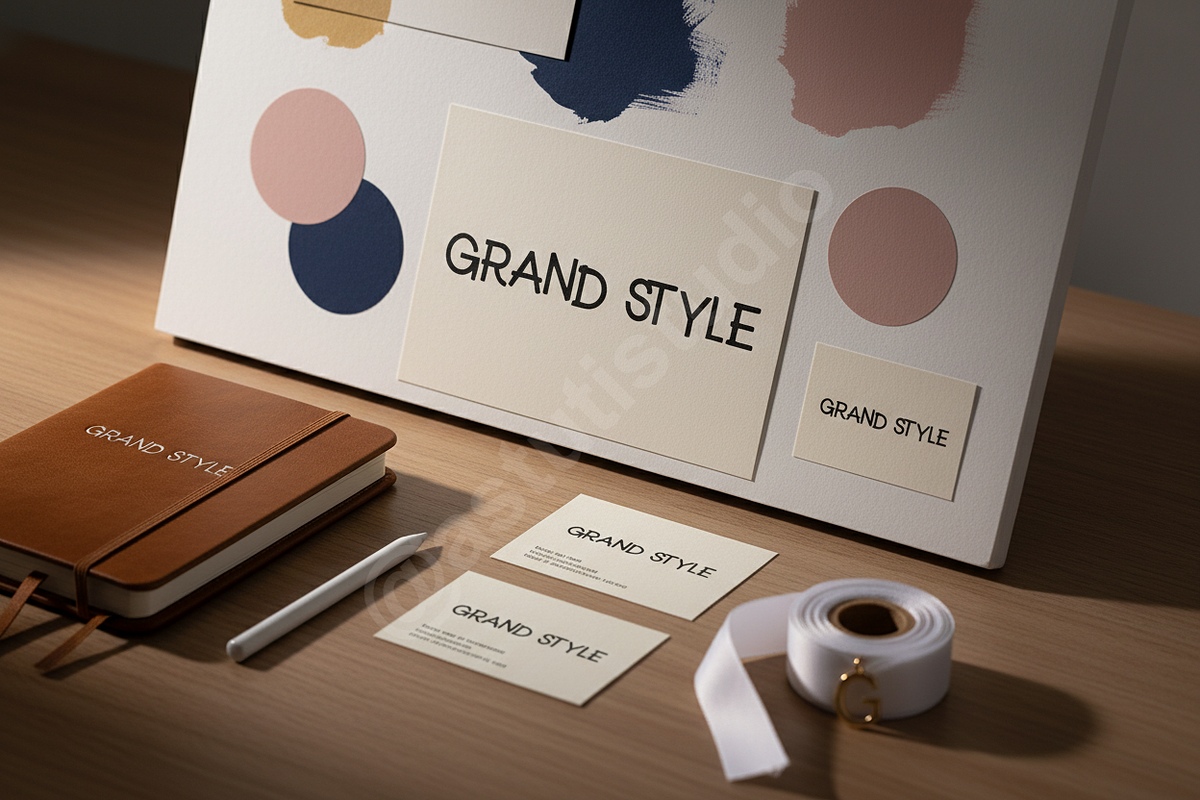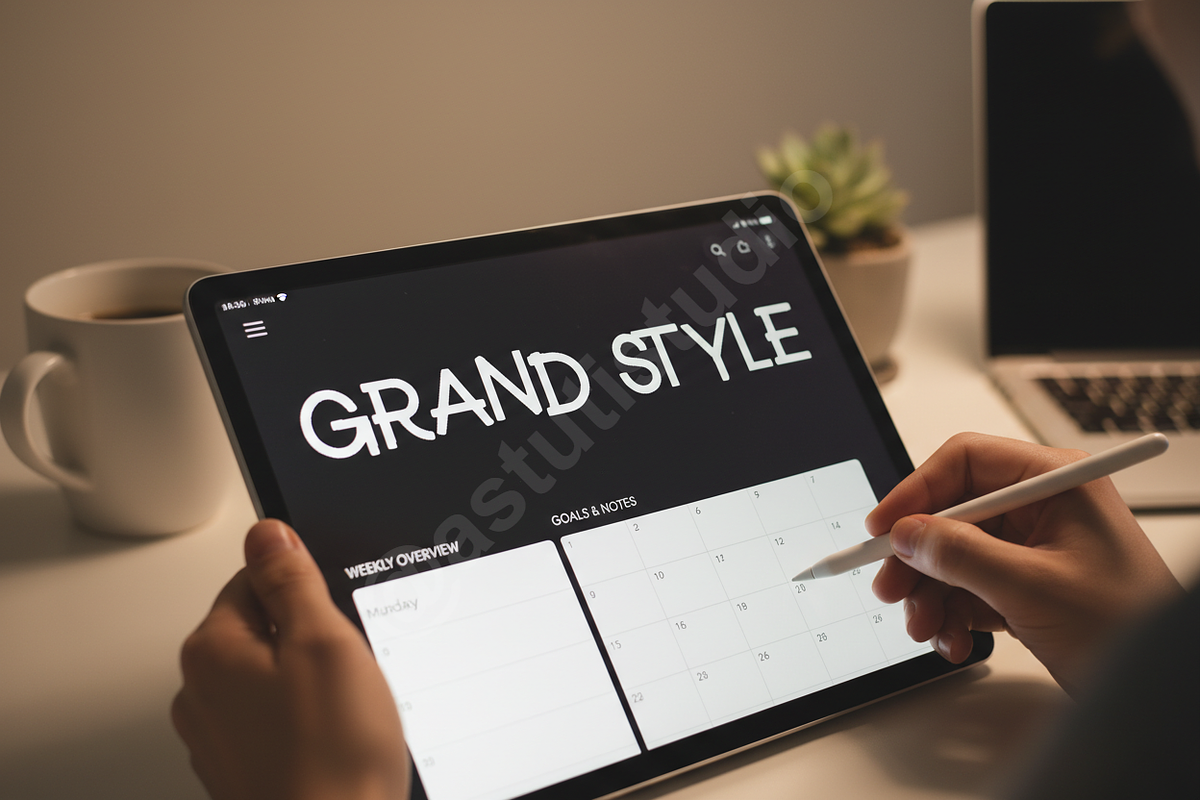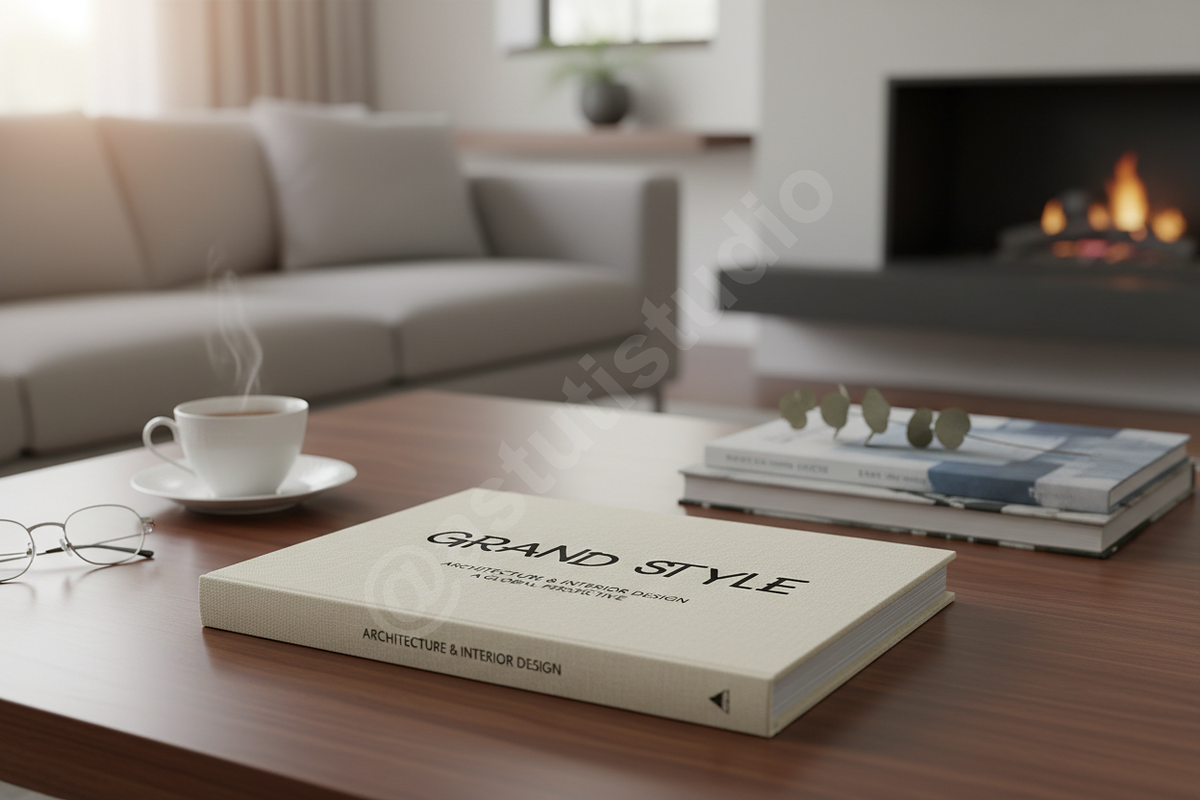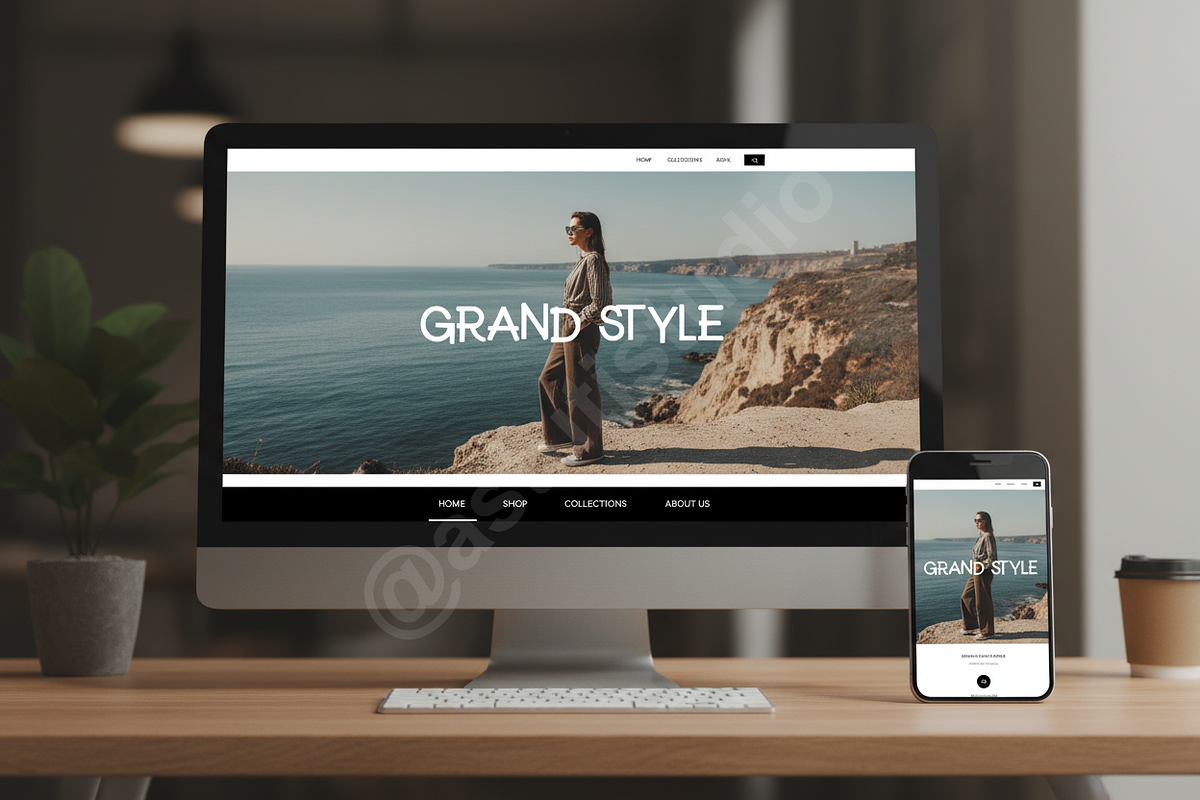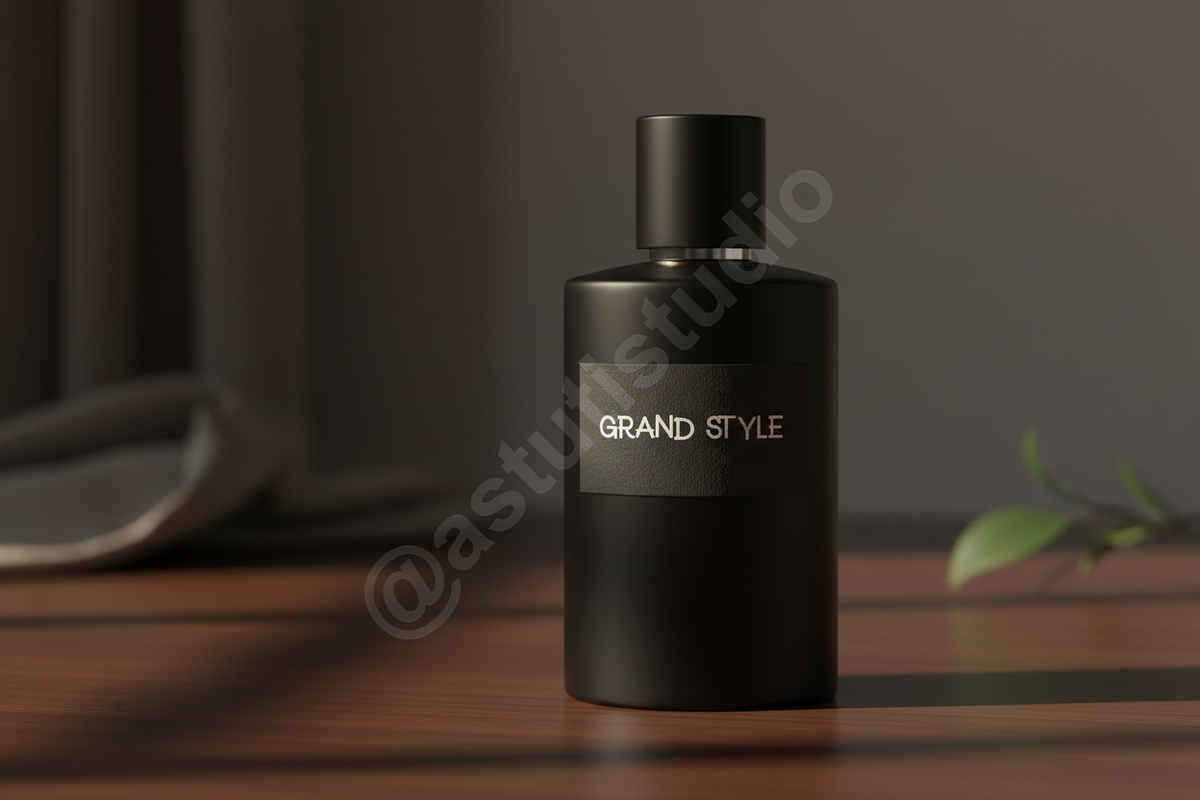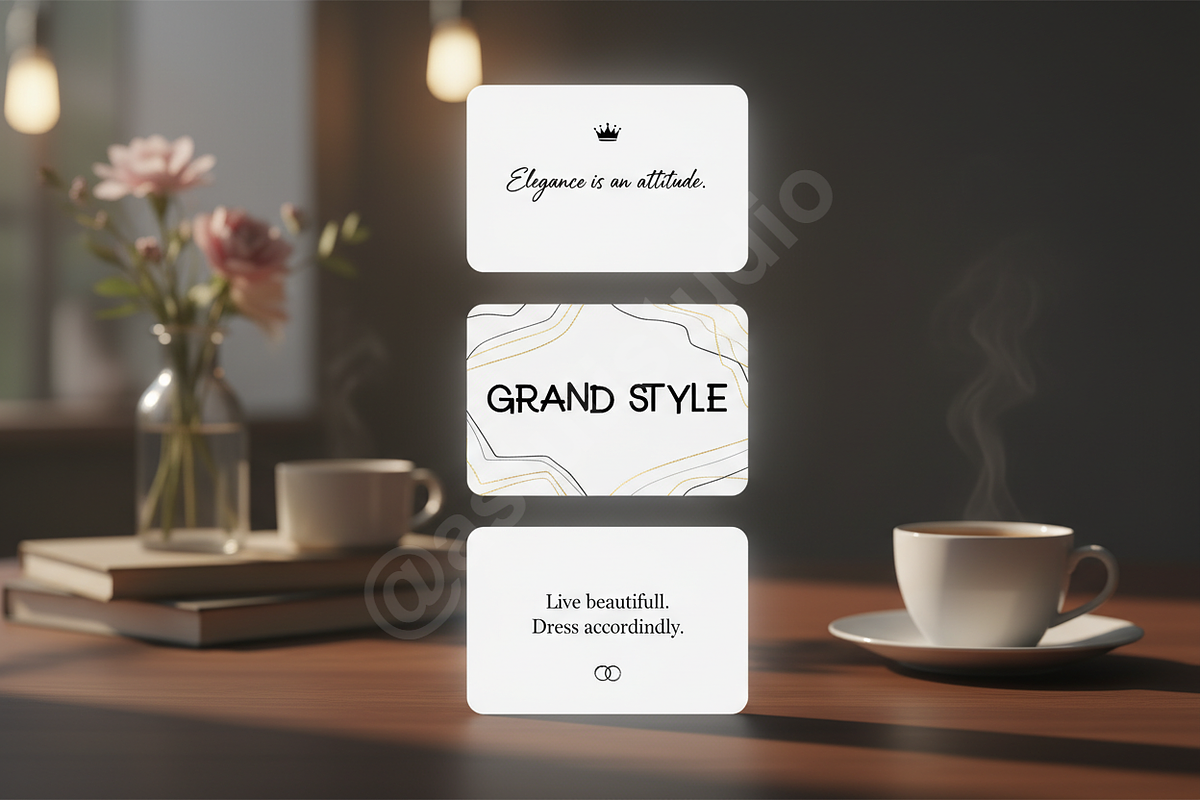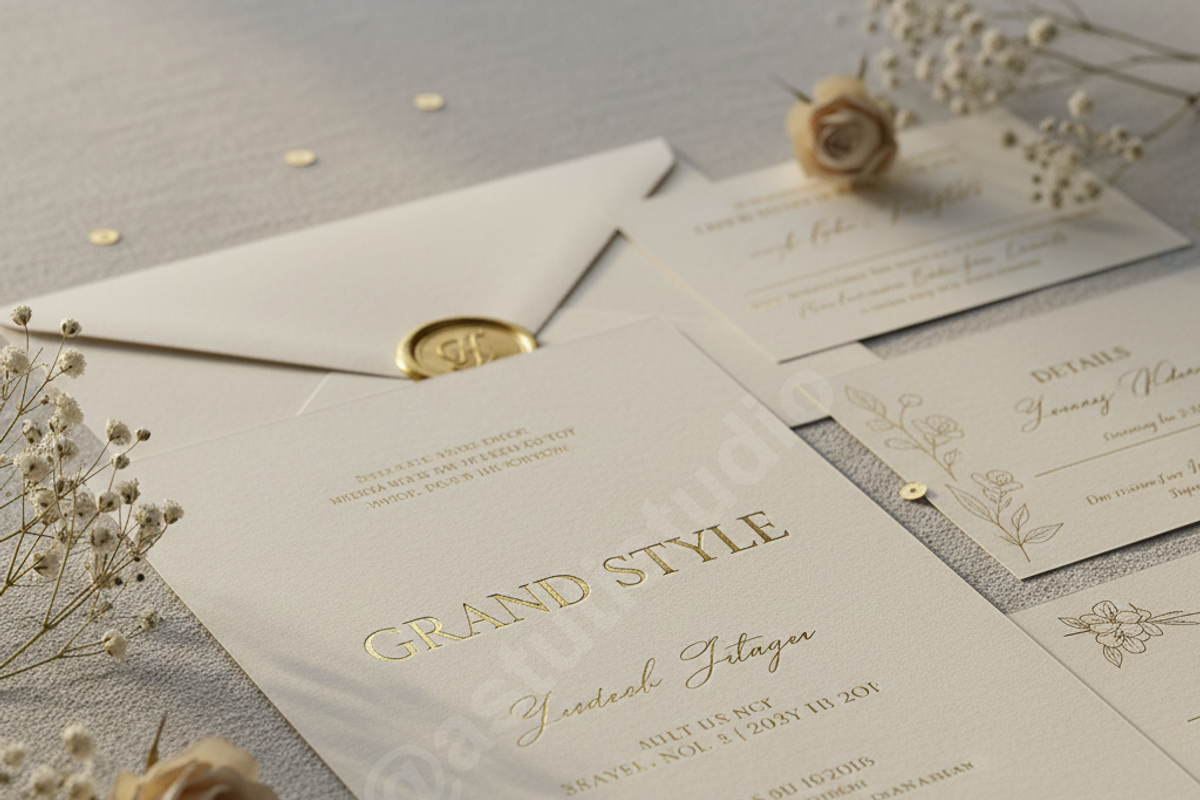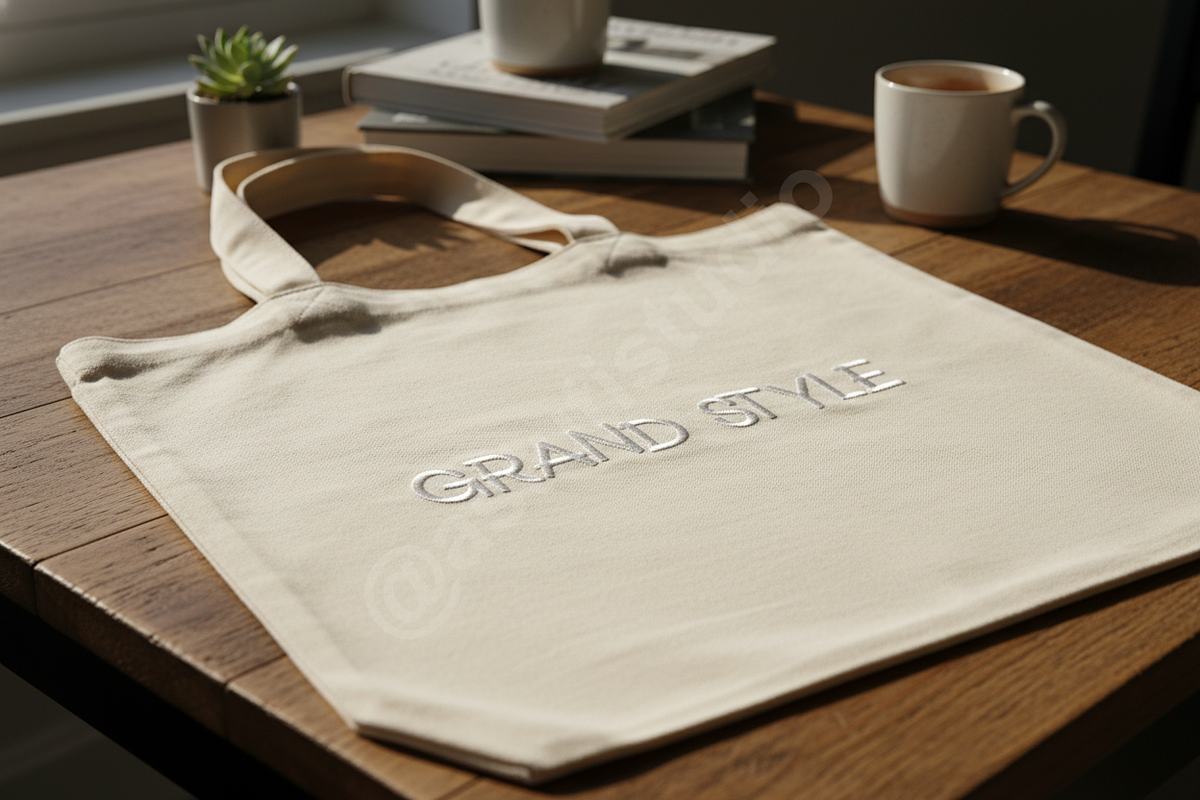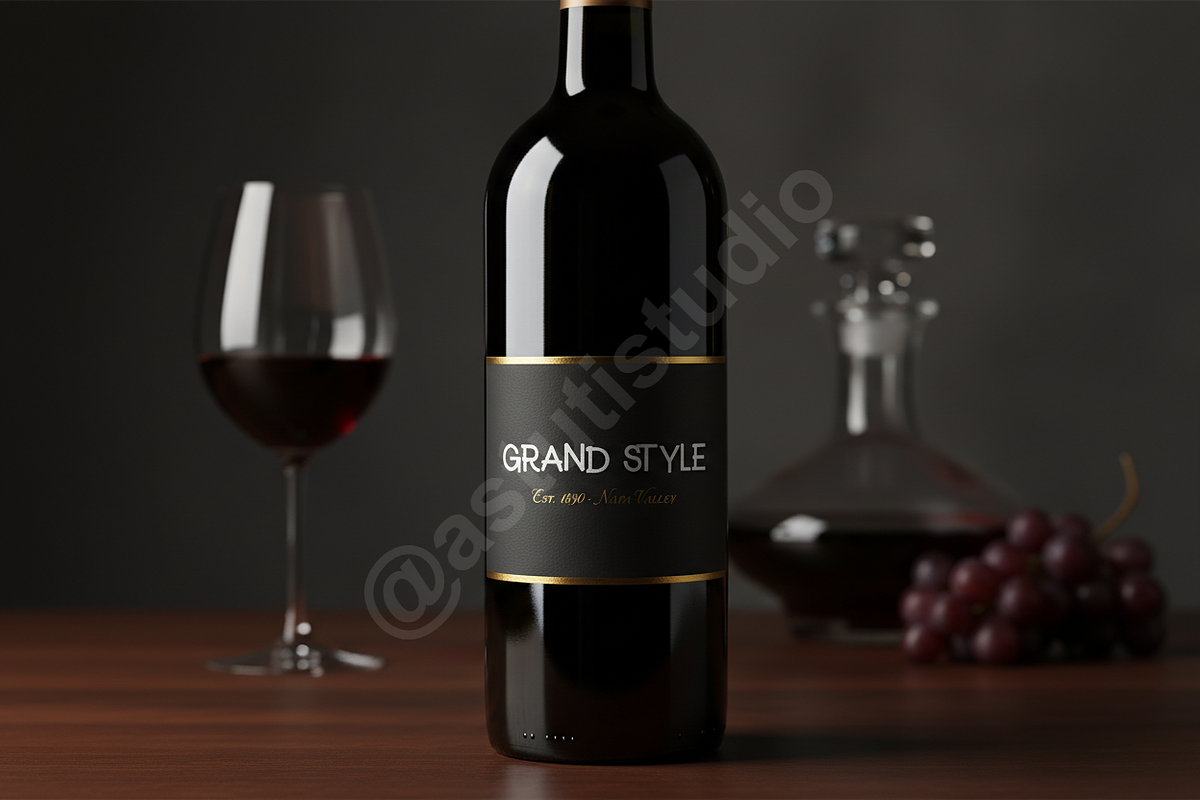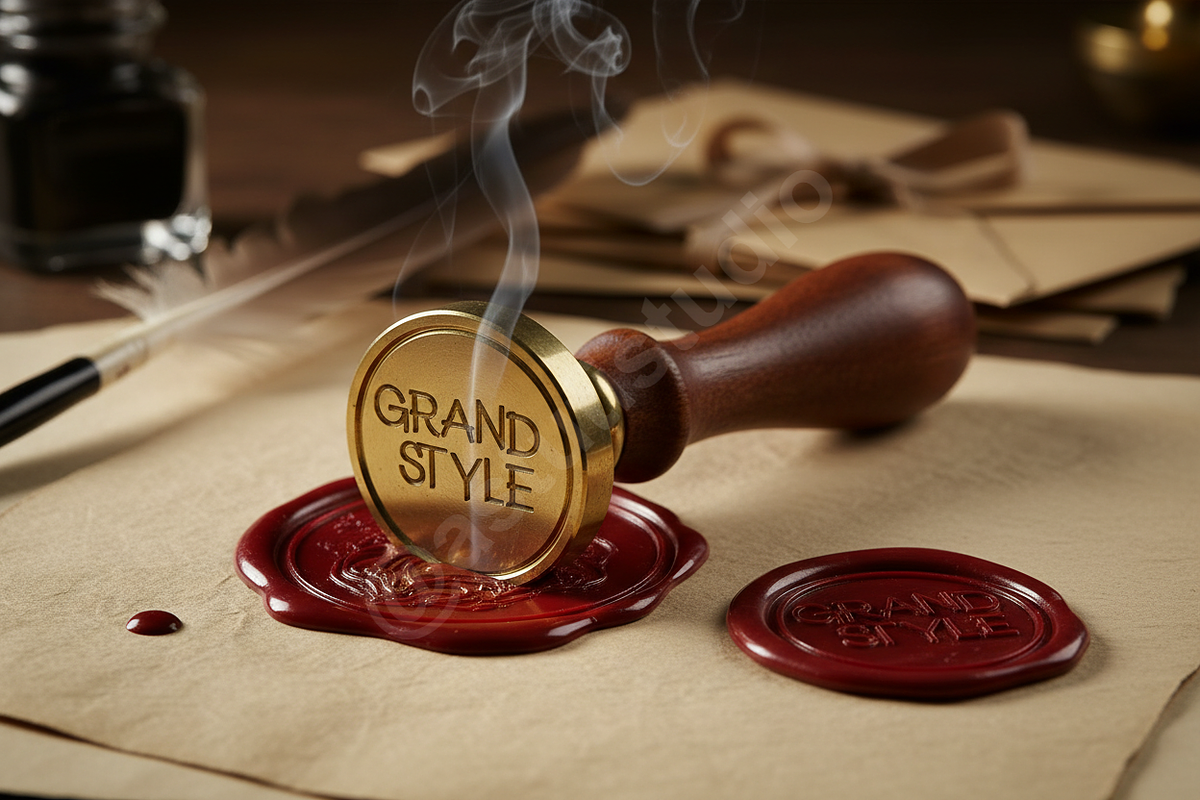
Layoke - Elegant & Modern Serif Type
INTRODUCTION Layoke is a premium serif typeface meticulously crafted for elegance and timeless appeal. Designed with a focus on luxury branding and editorial excellence, this font balances high-contrast strokes with refined curves, making it the perfect choice for high-end fashion, beauty, and boutique branding. Whether you are designing a sleek logo, a sophisticated magazine layout, or elevated social media content, Layoke provides a polished and professional touch to any project.
- Sophisticated high-contrast serif design
- Extensive character set for multilingual support
- Unique ligatures and stylistic alternates for custom layouts
- Clean and legible proportions for both print and digital use
- Optimized kerning for professional-grade typesetting